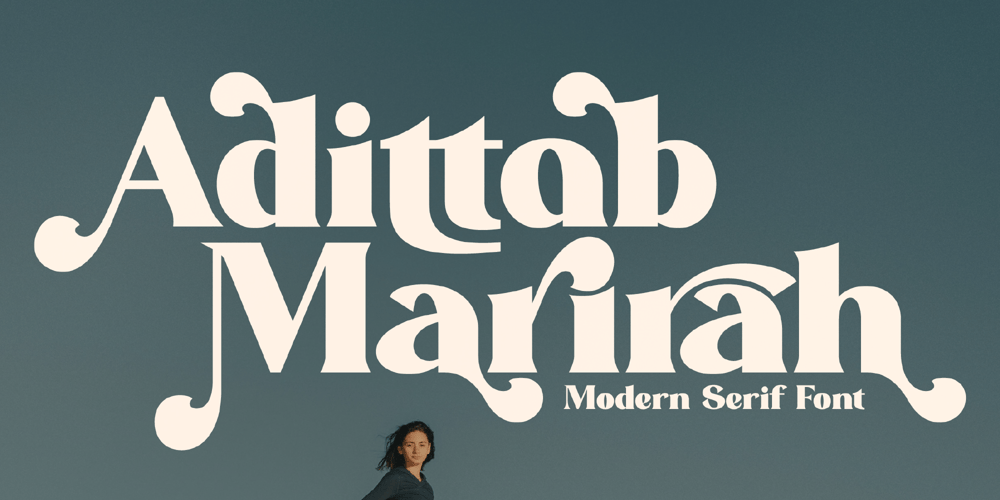
Adittab Marirah Font Family was designed by Heru Utama Putra and published by Letterena Studios. Adittab Marirah contains 2 styles and family package options. Adittab Marirah is a serif modern and classic typeface that its own unique style & modern look.This typeface is perfect for an elegant & luxury logo, book or movie title design, fashion brand, magazine, clothes, lettering, quotes, and so much more. This font is PUA encoded which means you can access all of the amazing glyphs and ligatures with ease!